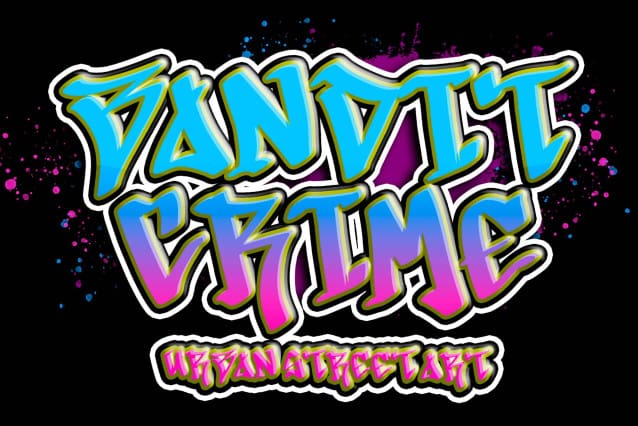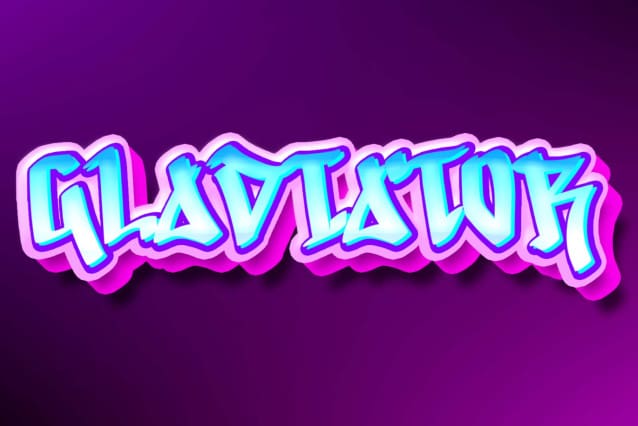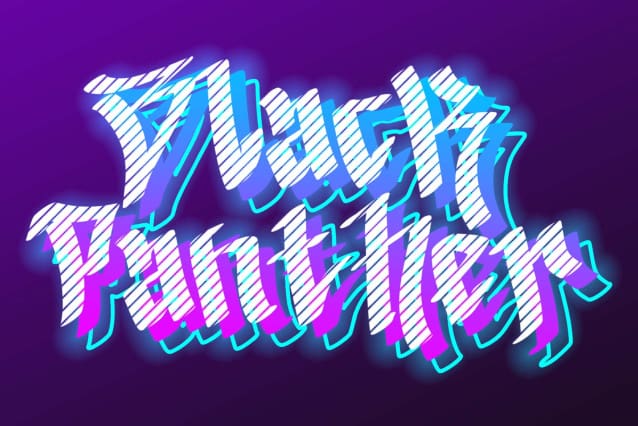
Bandit Crime Font
Bandit Crime Font is an elegant and professional graffiti font. This font is equipped with uppercase, lowercase, numerals, punctuation, and multilingual support. Very suitable for logos, stickers, banners, branding, tattoos, Christmas, urban art, street art, wall art, film titles, business branding, and others.